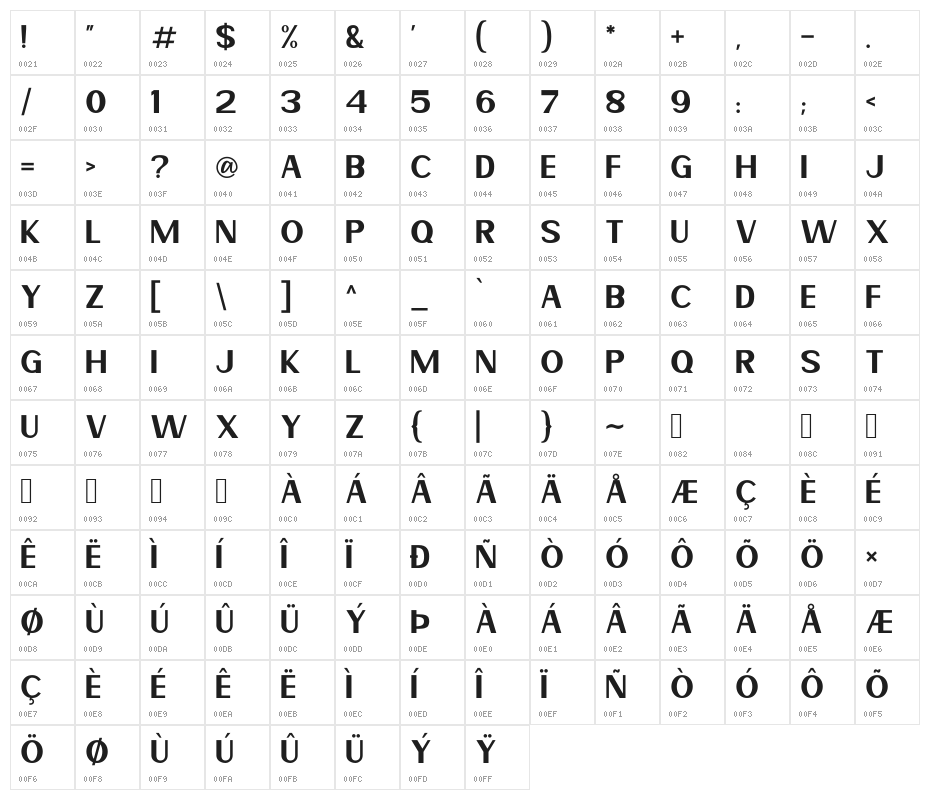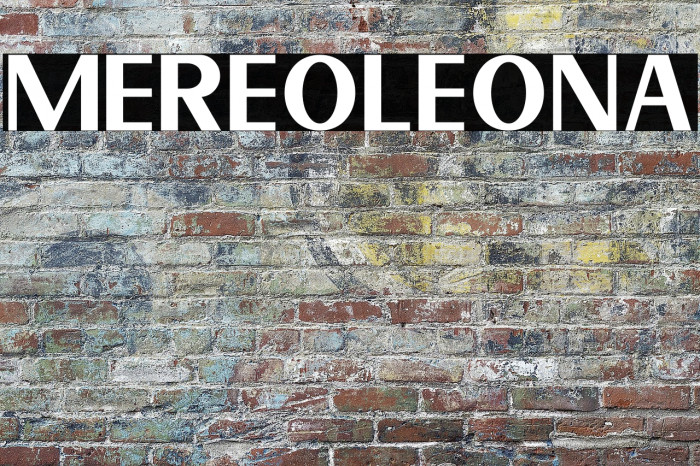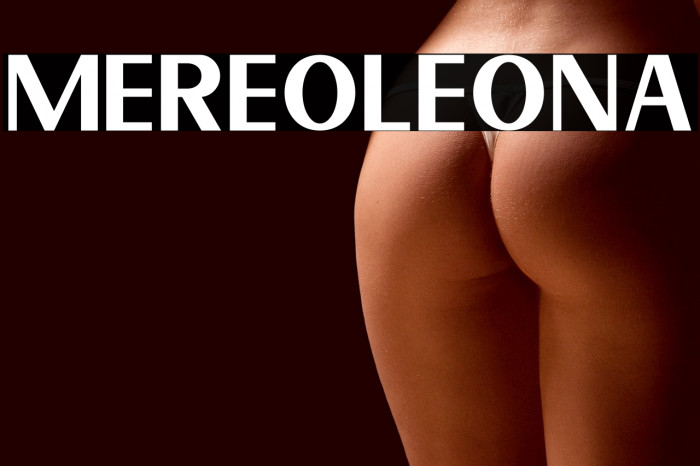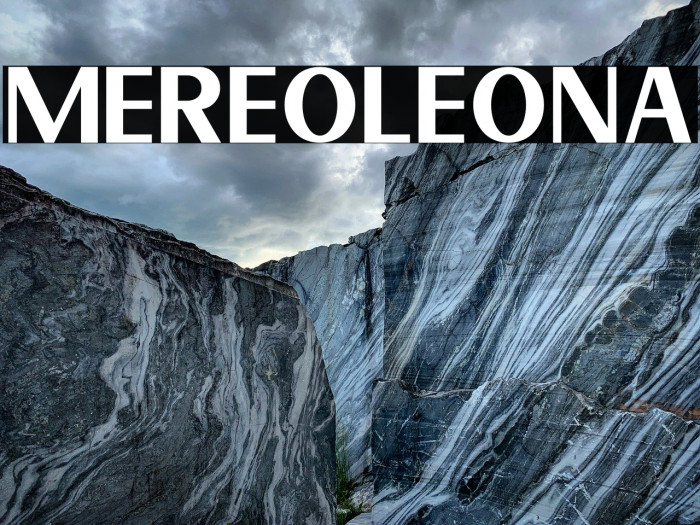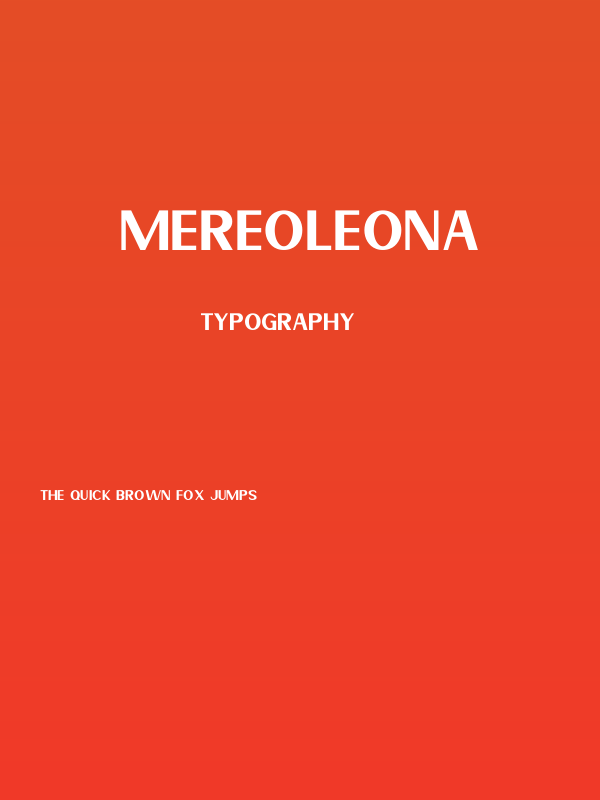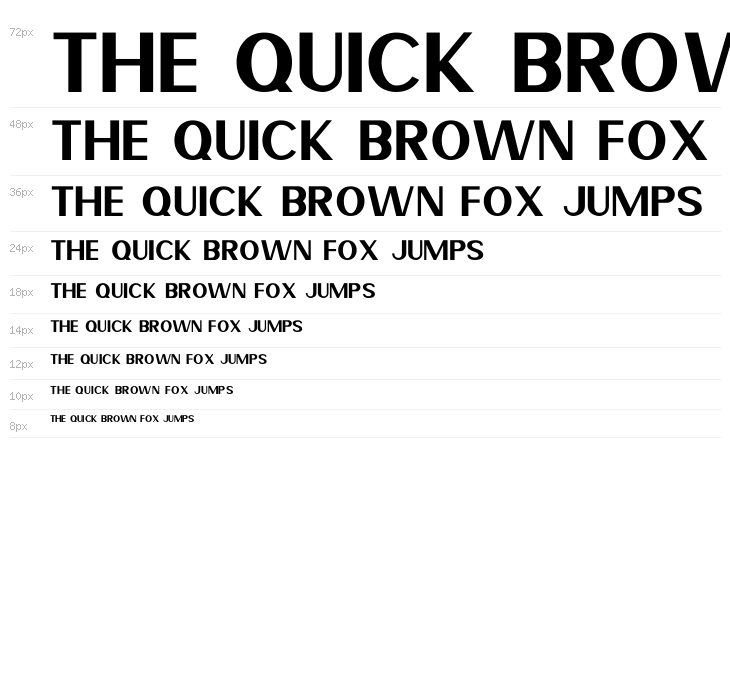
Mereoleona Font
Mereoleona Description
This font is a bold, sans-serif typeface characterized by its clean and modern appearance. The letters are uniform in width, with a consistent stroke weight that gives it a strong and impactful look. The uppercase and lowercase letters are well-proportioned, making it suitable for a variety of design applications. The numerals are clear and easy to read, while the special characters maintain the same boldness and clarity as the alphabet. This font's simplicity and strength make it versatile for both digital and print media.
Use CaseHeadlines, Logos, Branding
Proposed ProjectsIdeal for branding, advertising, headlines, and digital media where a strong, modern presence is needed.